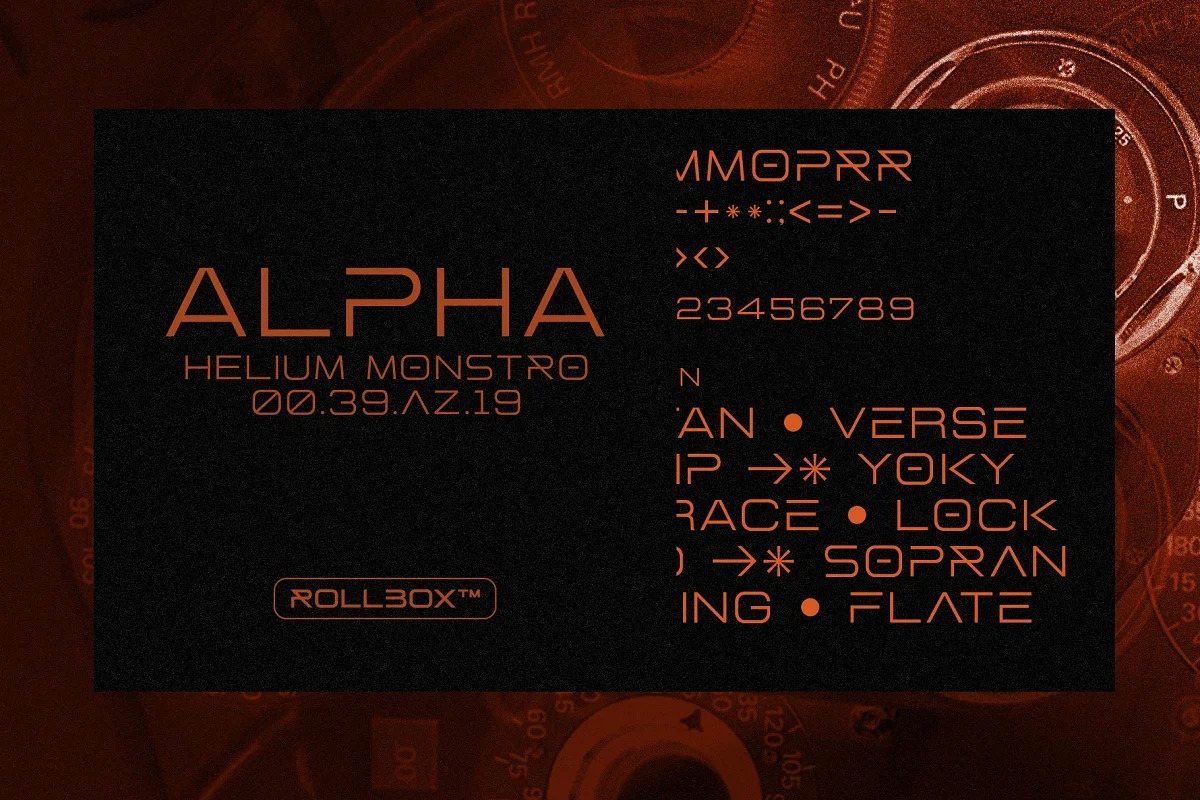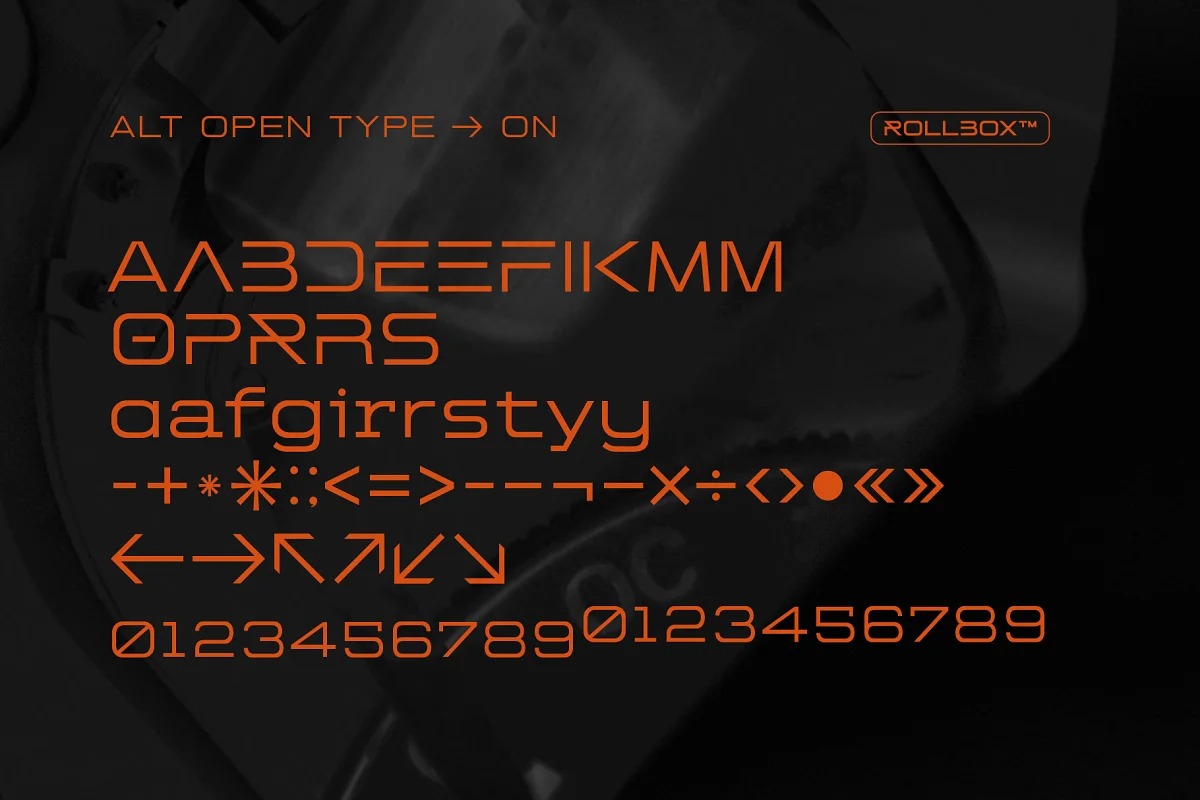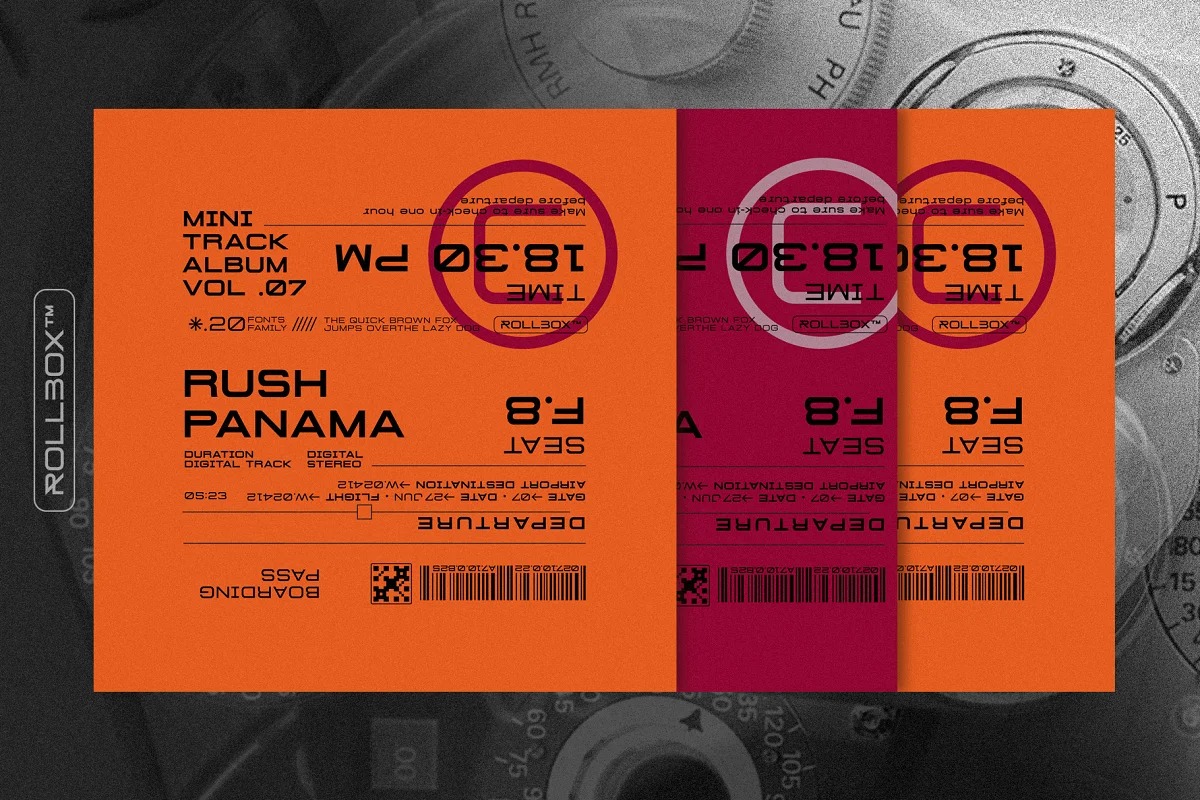
Rollbox Font
Rollbox Sans Serif Font is a modern sci-fi fonts inspired by the development of technological modernization in the world of the digital visual industry, By adopting a modern style and a little combined with the beauty of the monospace style that can be found in small letters, Rollbox with 20 font weights & the addition of several alternative letters, this will be more enriching & more extensive exploration. Not only that rollbox letters can also be used in logo characters, writing short paragraphs will all work well with beautiful combination portions. Let’s start design.